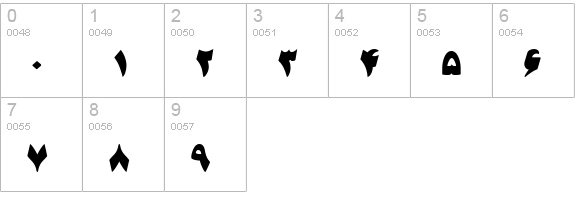
B Jadid Bold Font Details
B Jadid Bold is a strong, high-contrast variant in the B typeface family \xE2\x80\x94 well suited to headlines, attention-grabbing titles, and strong calls-to-action.
B Jadid Bold font is a modern and bold typeface that exudes confidence and sophistication. With its sleek lines and strong presence, this font is perfect for creating eye-catching headlines, logos, and branding materials. The bold weight of B Jadid ensures that your message will stand out and make a lasting impression. What's even better is that B Jadid Bold font is available for free download at FontsMarket.com. You can easily access this stylish and versatile font to elevate your design projects without any cost. Whether you're working on a website, print materials, or any other creative project, B Jadid Bold font is sure to make a statement. Download it today and add a touch of modern elegance to your designs.